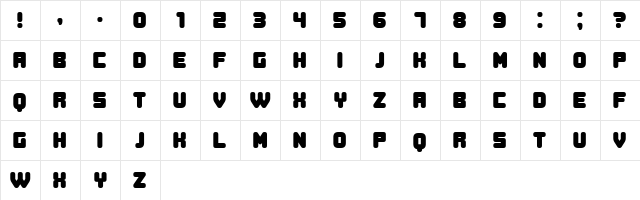
Duration Book Regular
Duration Book Family
Duration Book Regular
Design Context for Duration Book
Duration Book is a composed and adaptable typeface that performs quietly and consistently across a wide range of design contexts.